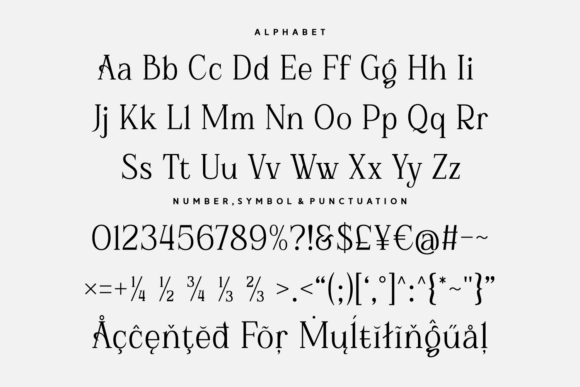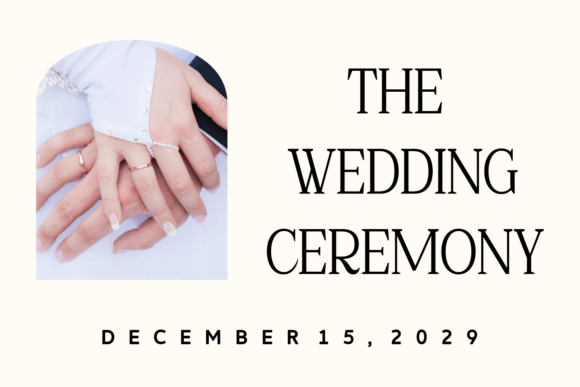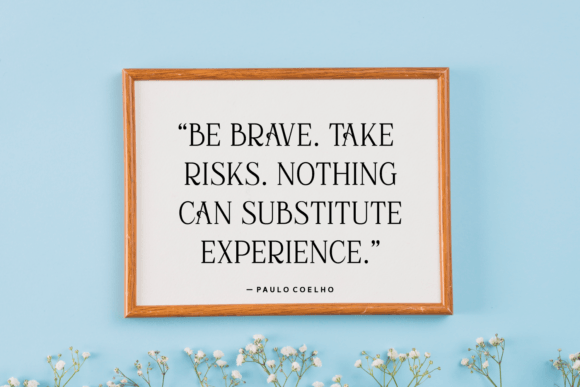
The Quest for Timeless Elegance: Unveiling the Alintzia Gentle Font
As designers, we’ve all been there – staring at a blank canvas, searching for the perfect font to bring our vision to life. It’s that moment when you need a typography solution that exudes sophistication and refinement. You’re not just looking for any font, but one that elevates your design to new heights and leaves a lasting impression.
Enter the Alintzia Gentle Font, a masterfully crafted serif font that embodies elegance and luxury. This exquisite font is designed for those who crave timeless beauty and refinement in their design work. Whether you’re working on a high-end branding project or crafting a wedding invitation, the Alintzia Gentle Font is the perfect choice to add a touch of class and sophistication.
Alintzia Gentle Font Key Features
- Size: The font family includes multiple weights and styles, ranging from 100 to 900, offering flexibility for various design needs.
- Unique Characteristics: The font features a unique blend of elegance and sophistication, with subtle rounded edges and a gentle touch, making it suitable for a wide range of applications.
- Language Support: Alintzia Gentle Font includes support for multiple languages, including Latin, Cyrillic, and Greek alphabets, making it a versatile choice for global designs.
- Font Pairing: The font’s gentle and refined nature makes it an excellent choice for pairing with other elegant and modern fonts, creating harmonious and balanced typographic combinations.
Alintzia Gentle Font Review
As a designer, I recently had the chance to work with the Alintzia Gentle Font, and I have to say it’s a mixed bag. Let’s start with the good stuff ✨
- Legibility: The Alintzia Gentle Font is surprisingly clear and easy to read, even at smaller font sizes. It’s perfect for body text or any content that requires a gentle touch.
- Neutral Aesthetic: The font has a neutral and timeless design that makes it suitable for a wide range of projects, from corporate to personal branding.
- Font Pairing: The Alintzia Gentle Font pairs well with many other fonts, making it easy to find a complementary font to create a visually appealing combination.
However, there are some limitations to consider ⚠️
- Lack of Expressiveness: The font is a bit too gentle, which can make it difficult to convey strong emotions or create a sense of urgency.
- Not Suitable for Headings: While the font is great for body text, it’s not the best choice for headings or titles, as it can get lost in the background.
- Not as Versatile: While the font is neutral, it can feel a bit bland when used for extended periods. It’s not the most versatile font, and you may find yourself looking for something more exciting.
Overall, the Alintzia Gentle Font is a solid choice for projects that require a calm and professional tone. However, it may not be the best fit for projects that need a bit more oomph or expressiveness.
Tips for Getting the Most Out of Alintzia Gentle Font
1. Use Alintzia Gentle Font for headings and titles to add a touch of elegance.
2. Combine Alintzia Gentle Font with other fonts to create a unique and visually appealing design.
3. Experiment with different font sizes and colors to create contrast and visual interest.